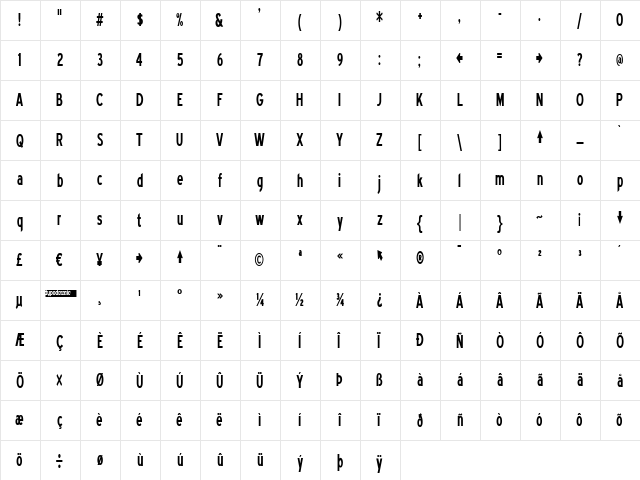
Blue Highway Free Condensed Regular
Design Context for Blue Highway Free Condensed Typeface
Blue Highway Free Condensed offers clean, dependable letterforms without strong stylistic allegiance, making it a practical choice for designers who need flexibility. The condensed width makes it efficient for tight spaces without sacrificing legibility.